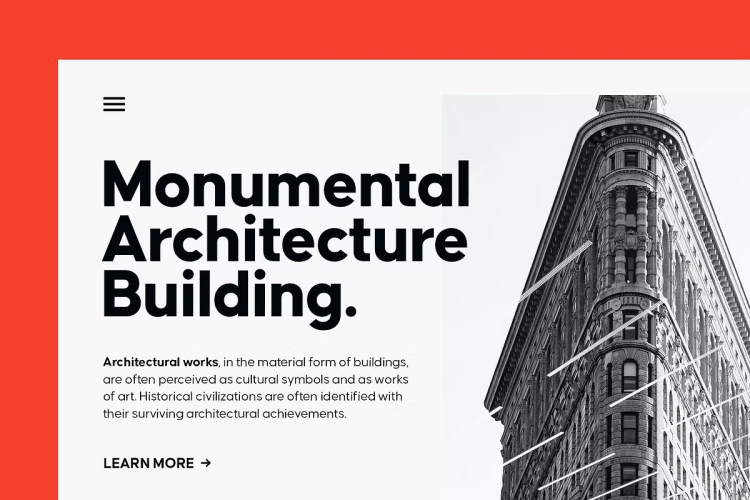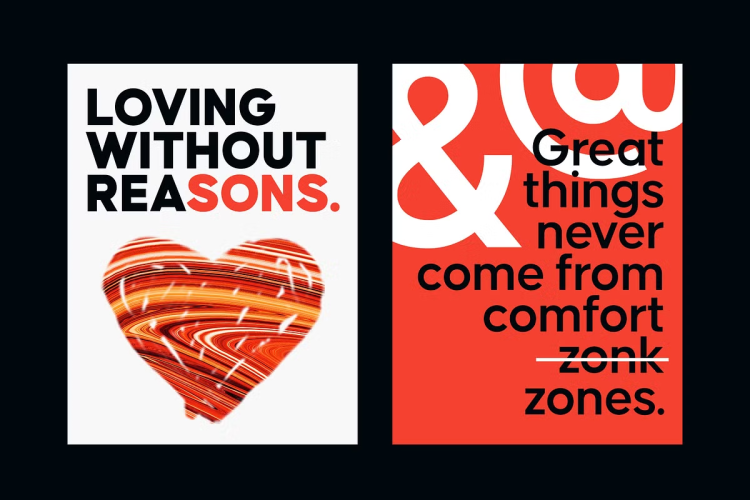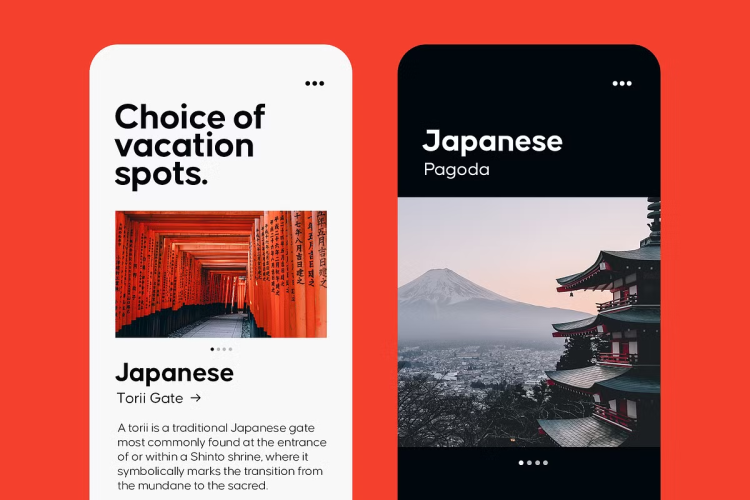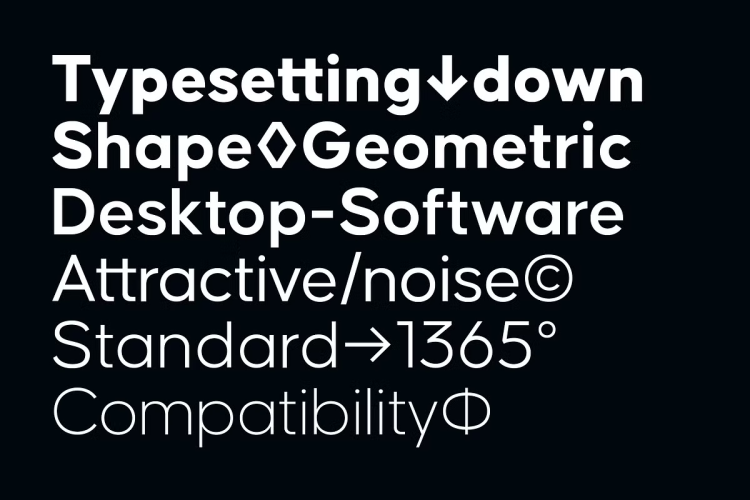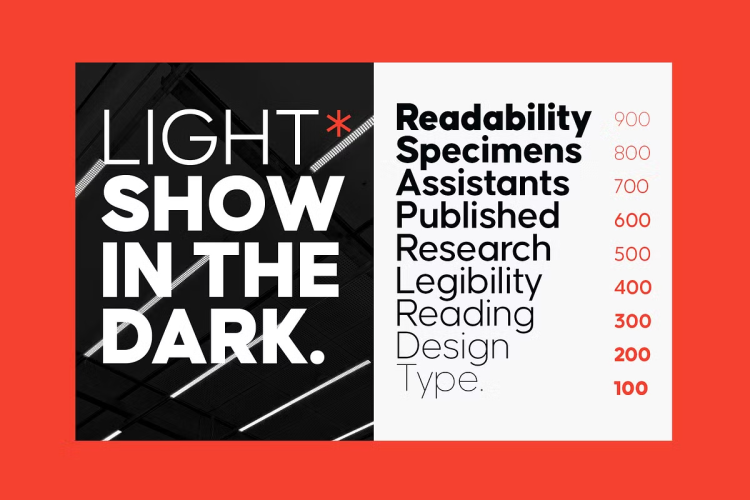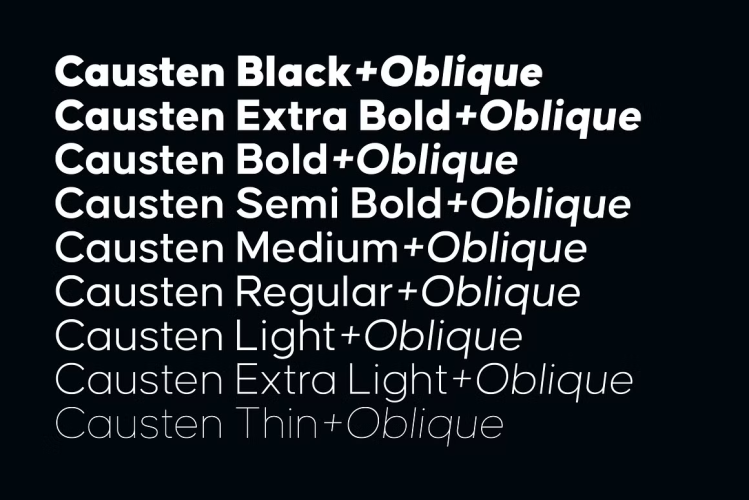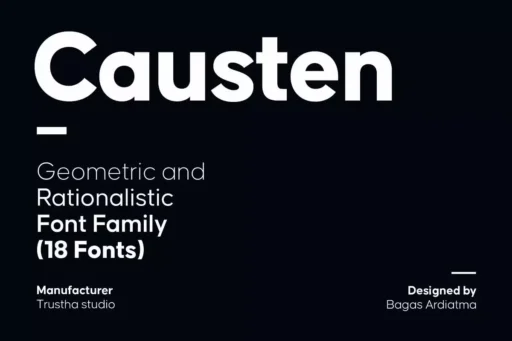
Causten Font
Causten is a geometric sans serif font family by Bagas Ardiatma. It has specific characteristics for controlling the shape and size of the glyphs. This ensures that Causten achieves good legibility, proper geometric construction, and no irregularities or flawed shapes.
This font family comes in 9 weights, each with a corresponding oblique variant, for a total of 18 different fonts. This large library makes it ideal for various designs and strong and fine texts. In addition, it provides various sets of glyphs to choose from to make the design even more unique, which is beneficial to the designer who seeks functionality as well as aesthetics in the font style.
To find other fonts with similar characteristics, Nexa and Chopin are great sans serif fonts that share many characteristics with this typeface.
Causten Font is a Sans Serif Fonts font that brings a professional and versatile look to your projects. Causten is a geometric sans serif font family by Bagas Ardiatma.